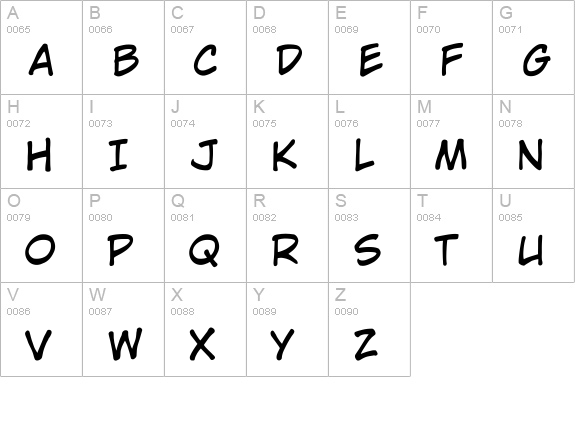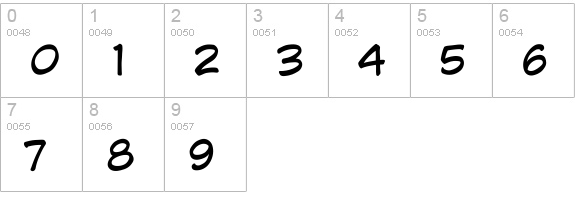
CCWildWords-Roman Font Details
CCWildWords-Roman font is a captivating and versatile typeface that effortlessly combines classic elegance with a modern twist. Its sleek and stylish design is perfect for a wide range of projects, from branding to editorial layouts. The clean lines and sophisticated curves of this font make it ideal for creating professional and eye-catching designs. What sets CCWildWords-Roman font apart is not only its beauty but also its accessibility. This font is freely available to download at FontsMarket.com, allowing designers and creatives to easily access and use it in their projects without any restrictions. Whether you're working on a logo, packaging design, or website, CCWildWords-Roman font is sure to add a touch of sophistication and flair to your work. Elevate your designs with this stunning font today!